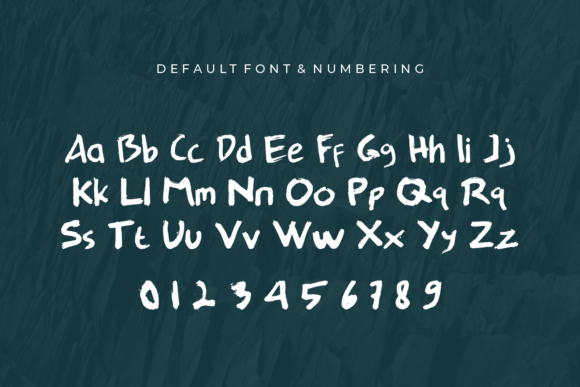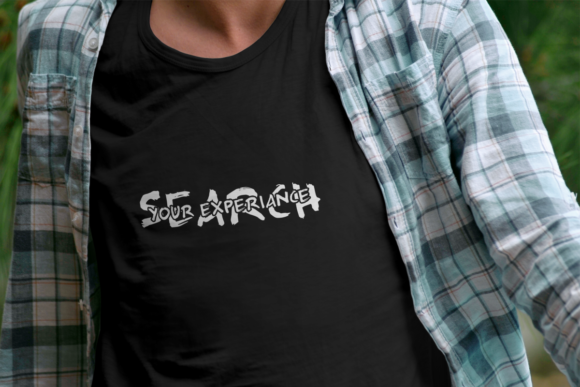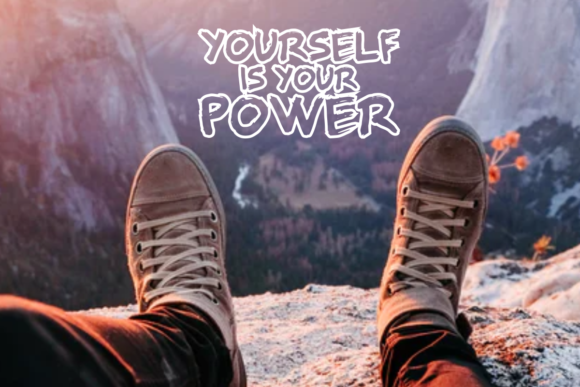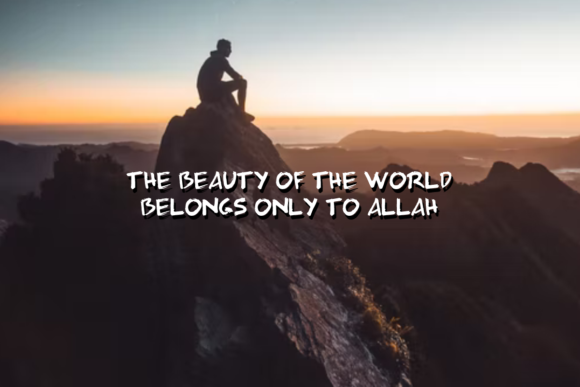
Introducing Expro Type Font: The Trendy and Brushed Display Font You Need
In the world of typography, fonts play a crucial role in making or breaking a design. A perfect font can elevate your project, making it stand out from the crowd, while a poorly chosen one can lead to a lackluster outcome. For designers and crafters looking for a trendy and brushed display font, Expro Type is an excellent choice. In this article, we’ll dive into the world of Expro Type, exploring its features, benefits, and uses.
What is Expro Type Font?
Expro Type is a modern, brushed display font designed to add a touch of elegance and sophistication to your projects. Its unique, hand-crafted look makes it perfect for headlines, titles, and promotional materials. With its trendy and eye-catching design, Expro Type is sure to capture the attention of your audience.
Key Features of Expro Type Font
- Trendy and Modern Design: Expro Type boasts a fresh and contemporary look, making it ideal for designers and crafters who want to stay on top of the latest design trends.
- Brushed Texture: The font features a beautiful, brushed texture that adds a touch of realism and sophistication to your designs.
- High-Quality and Legible: Expro Type is designed to be highly legible, even at smaller sizes, ensuring that your message is conveyed clearly and effectively.
- Versatile and Adaptable: This font is perfect for a wide range of projects, from branding and advertising to packaging and digital media.
Benefits of Using Expro Type Font
So, why should you choose Expro Type for your projects? Here are just a few benefits of using this amazing font:
- Adds Visual Interest: Expro Type’s unique design and brushed texture add visual interest to your designs, making them more engaging and attention-grabbing.
- Enhances Brand Identity: With its modern and trendy look, Expro Type can help elevate your brand’s identity and make it stand out from the competition.
- Easy to Use: This font is incredibly easy to use, even for those who are new to design or typography.
- Time-Saving: Expro Type saves you time and effort, as you can quickly and easily create stunning designs without having to spend hours on typography.
Who Can Benefit from Expro Type Font?
Expro Type is perfect for a wide range of designers and crafters, including:
- Graphic Designers: Add a touch of elegance and sophistication to your designs with Expro Type.
- Digital Artists: Use Expro Type to create stunning digital art, from illustrations to animations.
- Crafters: Add a professional touch to your craft projects, from papercraft to mixed media.
- Marketers and Advertisers: Use Expro Type to create eye-catching promotional materials that grab attention.
How to Use Expro Type Font
Using Expro Type is easy! Here are a few tips to get you started:
- Pair it with Other Fonts: Combine Expro Type with other fonts to create a unique and visually appealing design.
- Play with Size and Layout: Experiment with different sizes and layouts to create a design that stands out.
In conclusion, Expro Type is a trendy and brushed display font that can elevate your designs and take them to the next level. With its modern and elegant design, high-quality and legibility, and versatility and adaptability, Expro Type is perfect for designers and crafters looking for a font that can help them create stunning projects. So why wait? Add Expro Type to your font collection today and experience the difference for yourself!